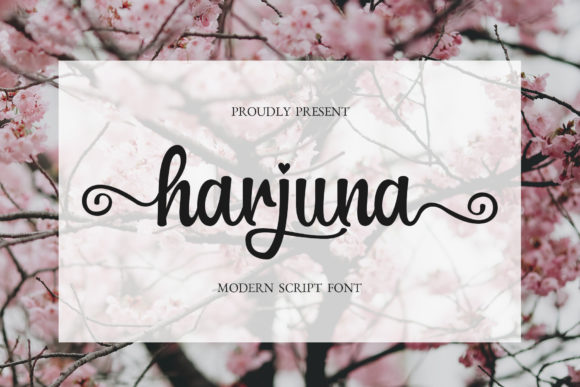
Introducing the enchanting Harjuna Script Font, a captivating creation by the renowned Authentic Studio. Immerse yourself in a world of alluring calligraphy that breathes life into your artistic endeavors.
Harjuna Script is a symphony of grace and fluidity, effortlessly adding a touch of elegance to your projects. Its meticulously crafted curves and enchanting swirls dance across the page, inviting you to express your creativity with unparalleled charm.
Whether you're seeking to create eye-catching logos, captivating social media designs, or heartfelt personal messages, Harjuna Script empowers you to make an unforgettable statement. Its versatility extends to a myriad of design concepts, guiding your imagination to boundless possibilities.
Indulge in the romantic allure of Harjuna Script for your next tattoo design. Its expressive strokes and delicate flourishes will transform your skin into an artistic masterpiece, a timeless tribute to your individuality and passion.
The world of Harjuna Script is a limitless canvas where dreams take flight. Let its enchanting characters guide your creative journey, transforming your visions into tangible works of art. Embrace the allure of Harjuna Script and experience the joy of crafting designs that resonate with beauty and grace.